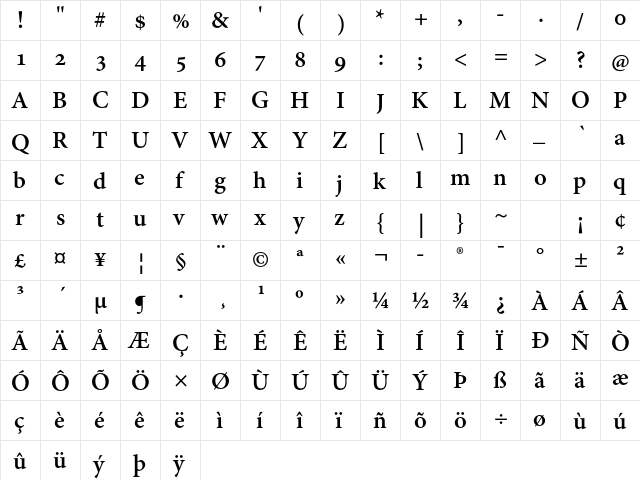
Adobe Hebrew Bold
| Foundry | Tiro Typeworks for Adobe Systems Incorporated. |
| Designer | John Hudson (Hebrew) and Robert Slimbach (Latin) |
Design Context for Adobe Hebrew Typeface
Adobe Hebrew takes a measured approach to typography — its balanced proportions and neutral character make it a reliable workhorse for both digital and print work. The heavy weight commands attention and anchors typographic hierarchies.